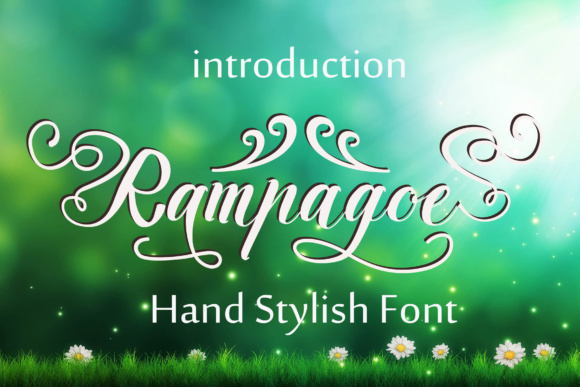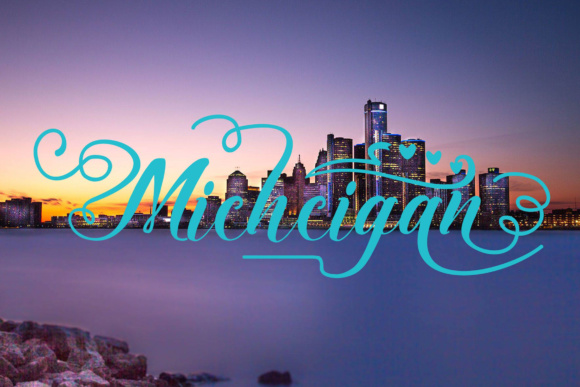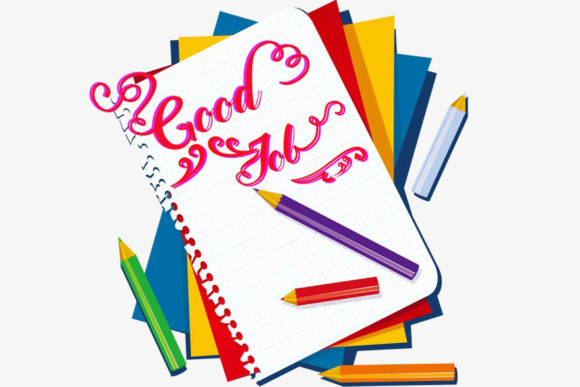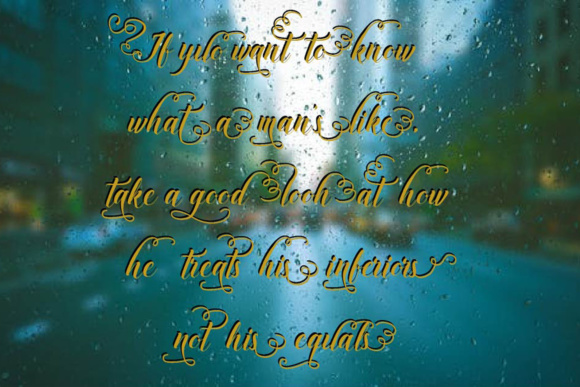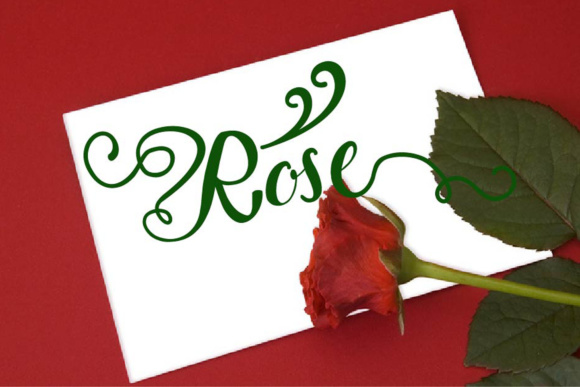
Rampagoe Font
About Rampagoe Font
Rampagoe is a beautiful, calligraphic font that works well in a wide range of works. This swashy, swirly font is ideal for use in displays and special occasion projects.